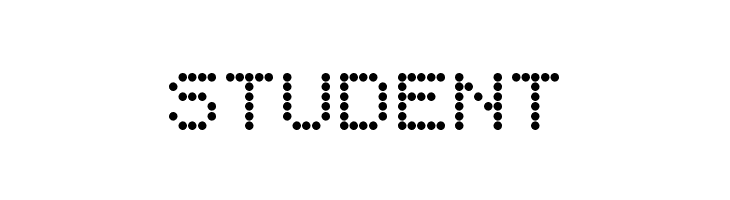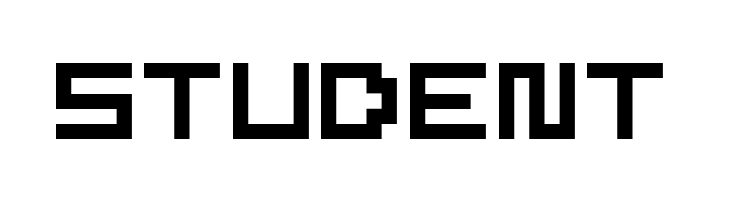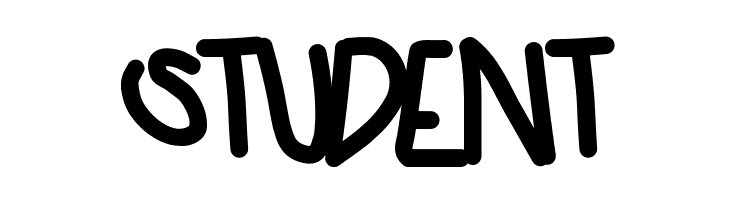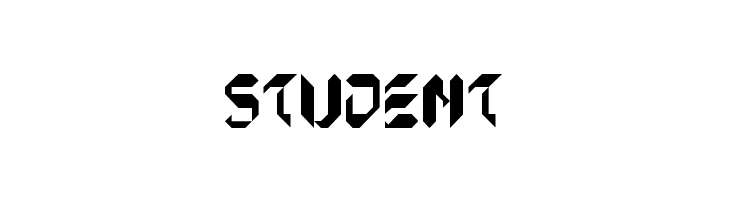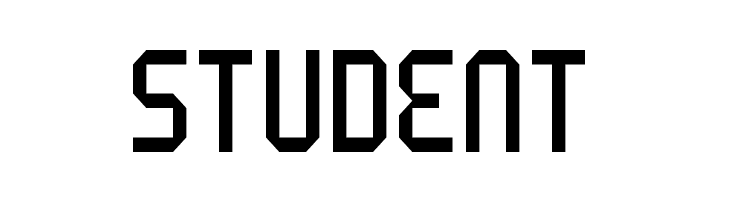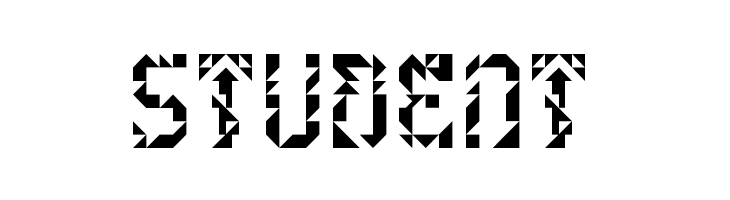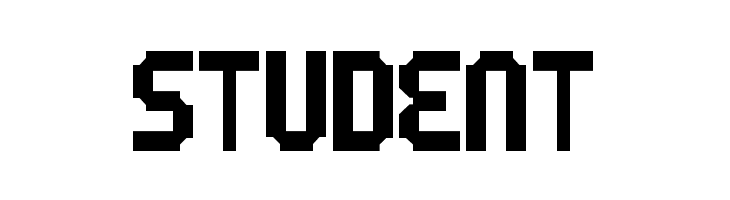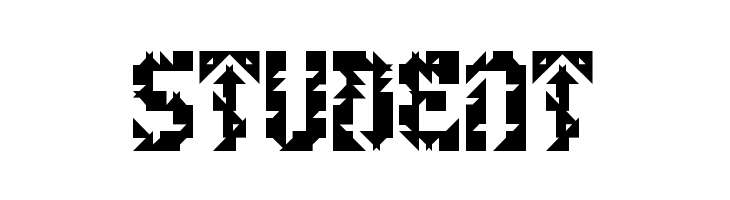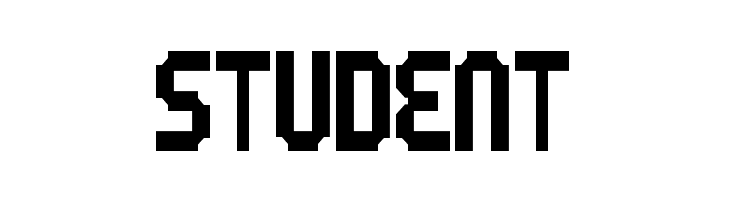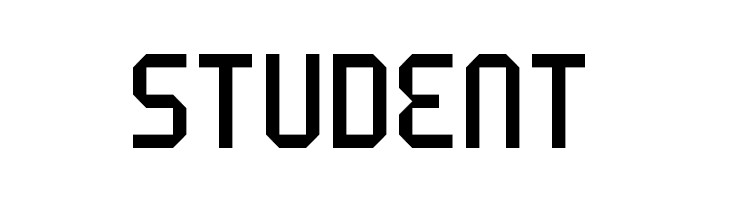
• 5Identification Mono Regular
A bold, geometric monospaced font with rounded edges and a modern style.
• 5Kallum Sans Neue Regular
A geometric, modern font with bold, angular characters.
• 5Kreeper Regular
• 5Maach Regular
A bold, rounded font with a modern and playful style.
• 5mal6Lampen
A dot matrix style font with a modern, digital aesthetic.
• 5Megabam Regular
• 5Metrik Black Alien Regular
A bold, angular font with a futuristic, alien-like design.
• 5Metrik Black Condensed Regular
A bold, geometric, and condensed font with a futuristic and industrial style.
• 5Metrik Black Regular
A bold, geometric font with a modern, digital aesthetic.
• 5Metrik Bold Alien Regular
A bold, angular font with a futuristic, alien-like design.
• 5Metrik Bold Condensed Regular
A bold, condensed, and geometric font with a modern industrial style.
• 5Metrik Bold Regular
• 5Metrik Light Alien Regular
A futuristic, geometric font with sharp angles and a blocky design.
• 5Metrik Light Condensed Regular
A geometric, condensed font with a modern and minimalistic style.
• 5Metrik Light Regular
A geometric, angular font with a modern and technical style.
• 5Microchip Nowhere Regular
A pixelated, geometric font with a retro digital display style.
• 5Mikropix Regular
A pixelated, retro-style font with a blocky, digital appearance.
• 5MinFreshenUp
• 5Monopix Regular
A pixelated, blocky font with a retro digital aesthetic.
• 5Muta Sans Regular
A modern, geometric sans-serif font with a bold and structured appearance.
A bold, geometric stencil font with a modern, industrial style.
• 5Tekknosystem Regular
A bold, geometric font with a futuristic and digital aesthetic.